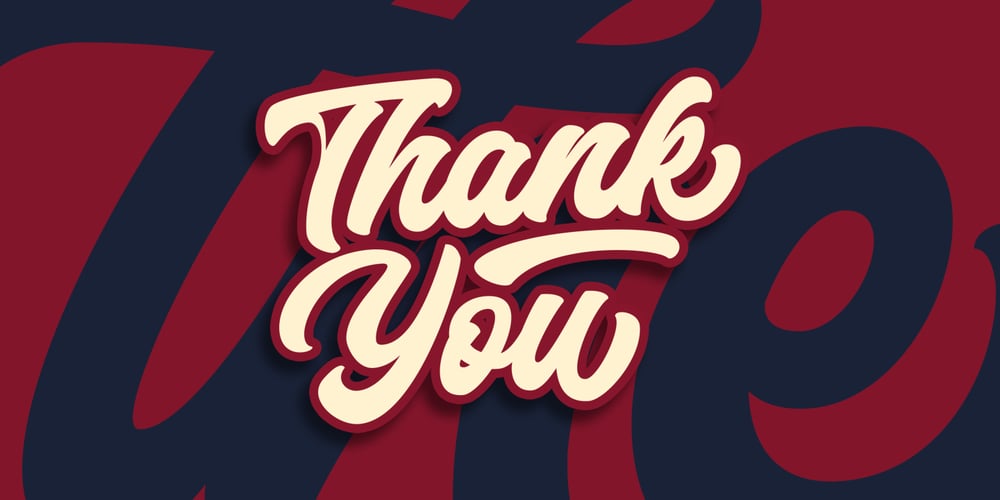
Anthemis Font Family was designed by Bangkit Tri Setiadi and published by Blankids. Anthemis contains 1 styles and family package options. Introducing Anthemis, the bold script font inspired by Bold hand lettering style. Anthemis is good for branding logotype, Packaging, poster, headline, book cover, Flyer, t-shirt design and any more. Anthemis has many alternative character and have opentype features like a stylistic alternatives, stylistic set, ligature and swash so you can mix and match like a you want.